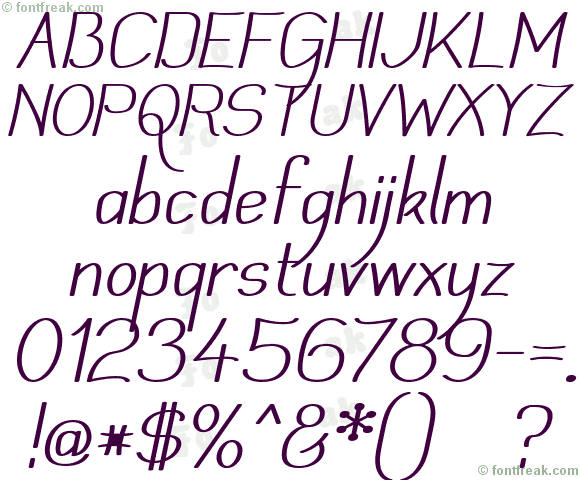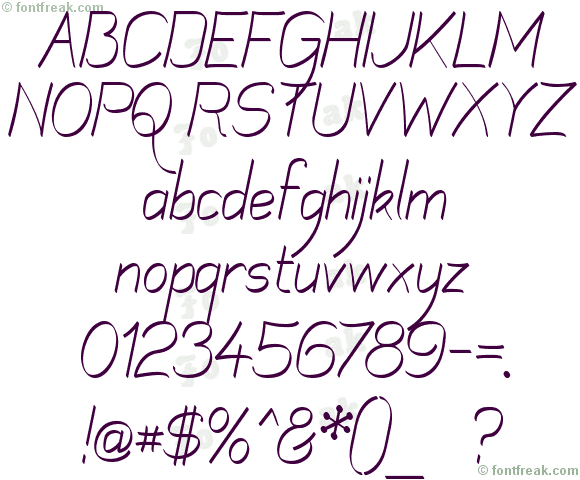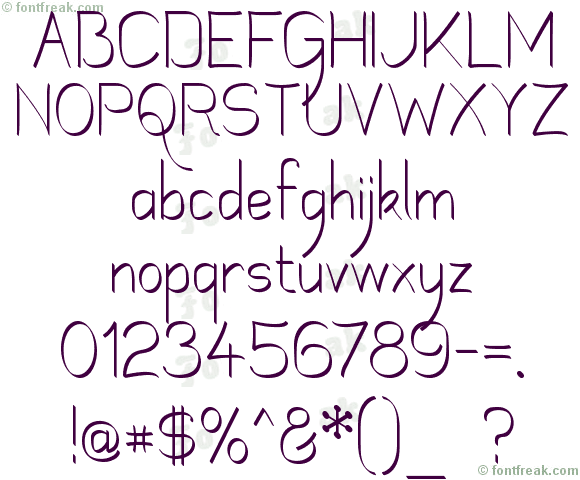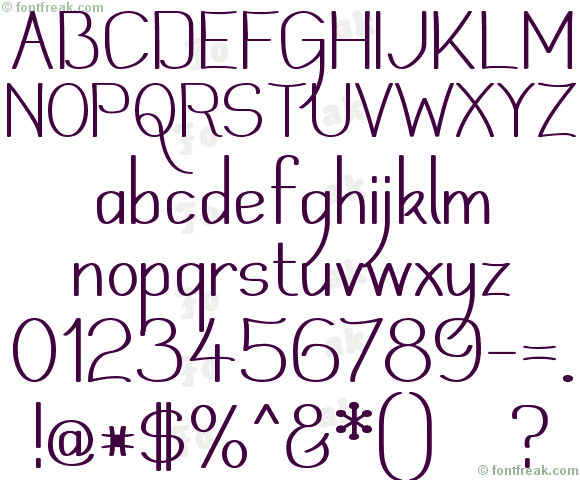
Mechanihan
About Mechanihan
Mechanihan, designed by Graham Meade in 2002 and offered as freeware by Gemfonts, is a unique decorative font that captures attention with its playful and whimsical style. This font features a ribbon-like italic design that adds a touch of elegance while maintaining a casual vibe. The characters exhibit a moderate stroke weight with subtle contrast, creating a visually appealing flow that is both readable and engaging. The spacing is well-balanced, ensuring that each letter stands out without crowding, making it suitable for various design applications.
Mechanihan excels in a range of creative projects. Its distinctive style makes it an excellent choice for wedding invitations, where it can convey romance and sophistication. Additionally, this font works beautifully for movie posters, adding a dynamic flair that draws the viewer's eye. Restaurant menus can benefit from Mechanihan’s unique character, setting a charming tone that invites patrons to explore the culinary offerings. It's also perfect for branding small businesses, allowing owners to create memorable logos that resonate with their target audience. Content creators will find Mechanihan useful for social media graphics and promotional materials, enhancing visual storytelling with its playful design.
This font appeals primarily to graphic designers, small business owners, and content creators looking to add a unique touch to their work. Its combination of elegance and playfulness ensures that it stands out in any design context. Mechanihan font free download allows users to incorporate this distinctive typeface into their projects without any financial commitment, making it an accessible option for all. With its artistic flair and versatility, Mechanihan is not just another font; it’s a creative tool that brings projects to life, ensuring that they leave a lasting impression.